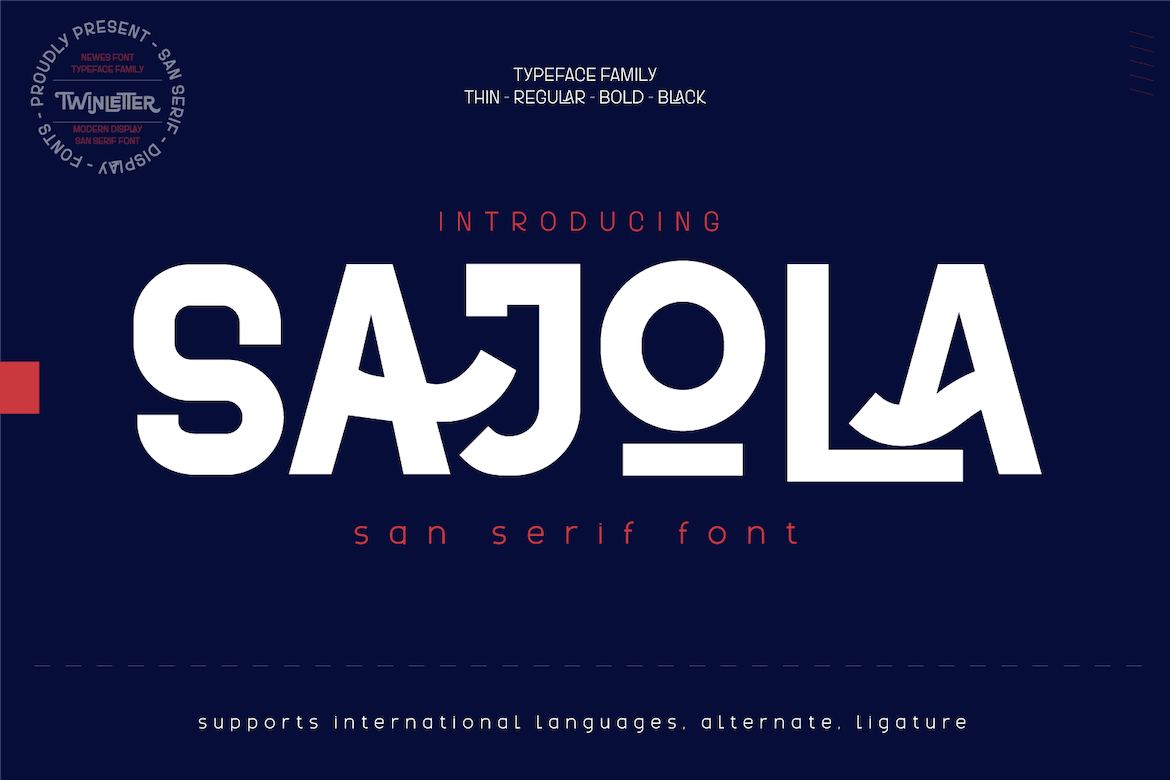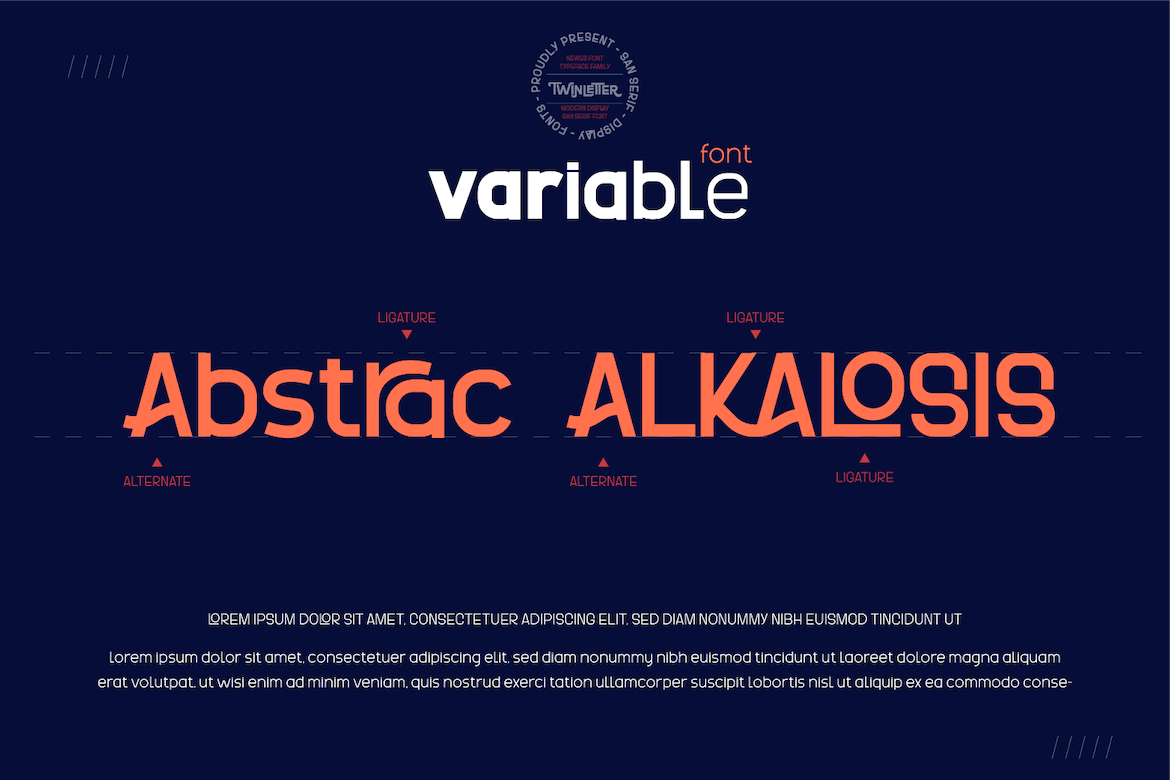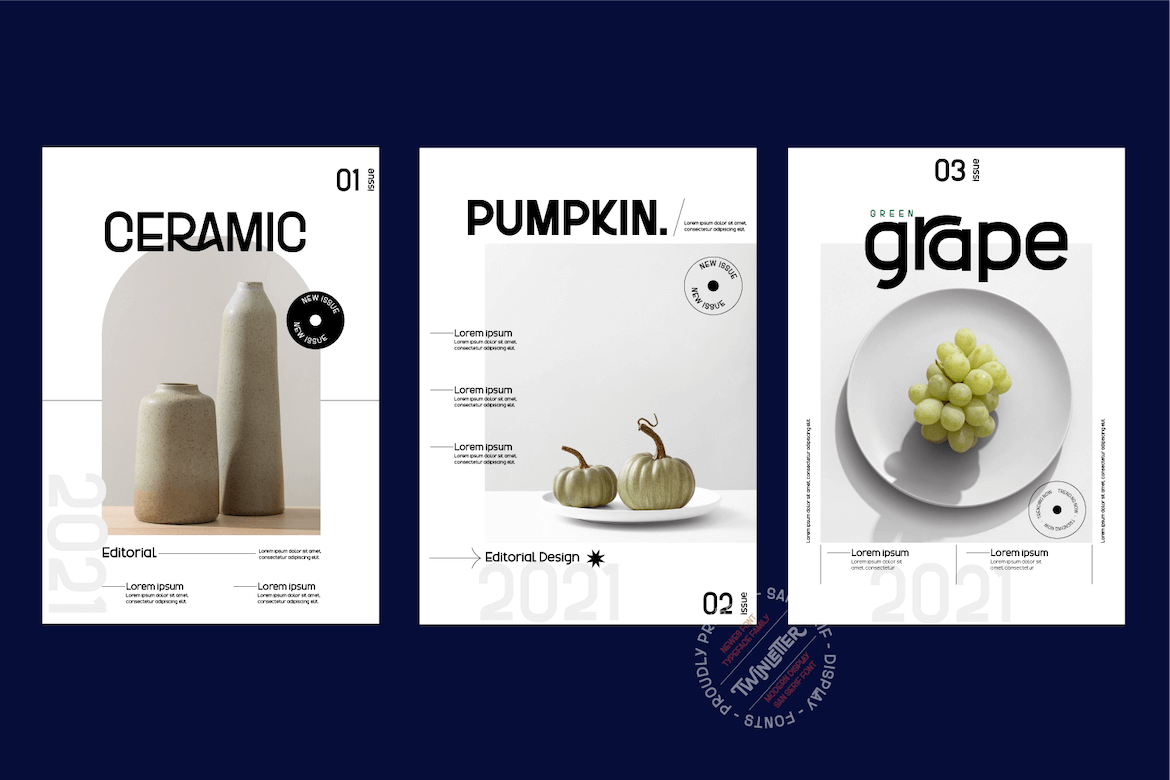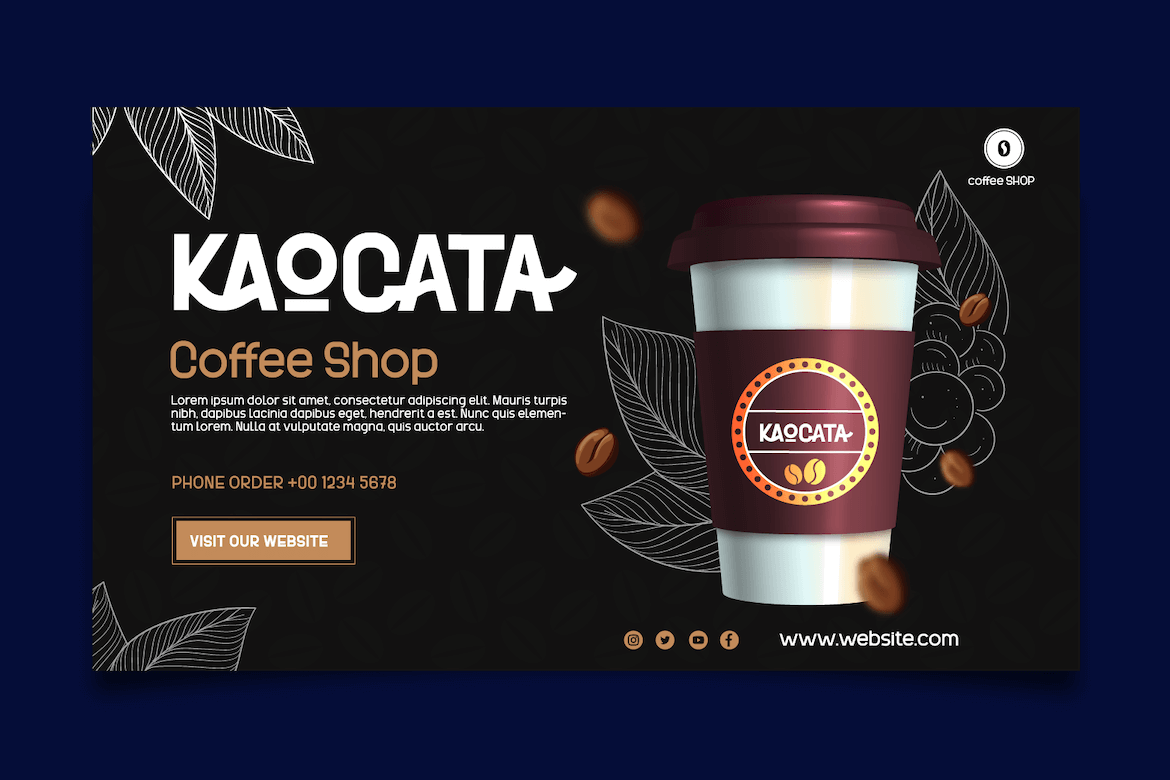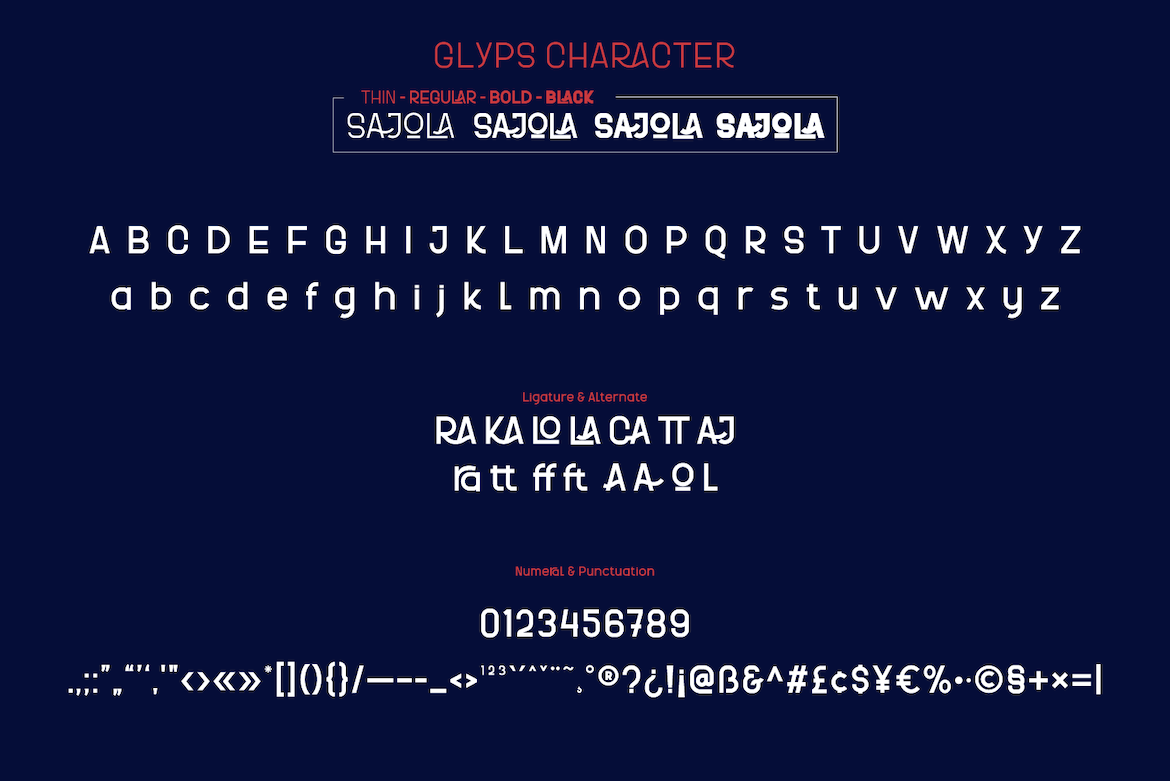
Sajola
The Sajola font is a contemporary sans-serif designed in four variants. Font designs range from formal and non-formal modern styles with a coherent typography system that has the same amount of weight, identical character sets, and vertical dimensions. Professional typography that supports using individual variants as main headings, sub-headings, sentence, and paragraph texts, making this font complete as your choice.
This font is designed with space-sensitive environments in mind. Environments such as interfaces, forms, and pathfinding applications. Font spacing is adjusted in a way that allows switching of weight and style without having a significant impact on overall space consumption.